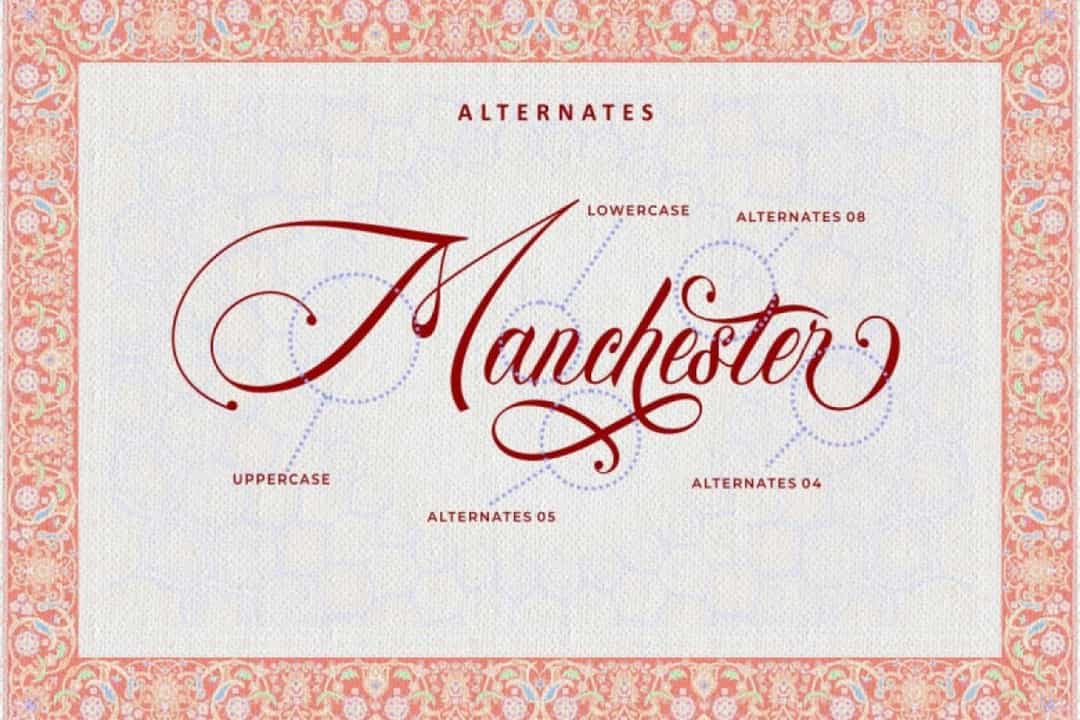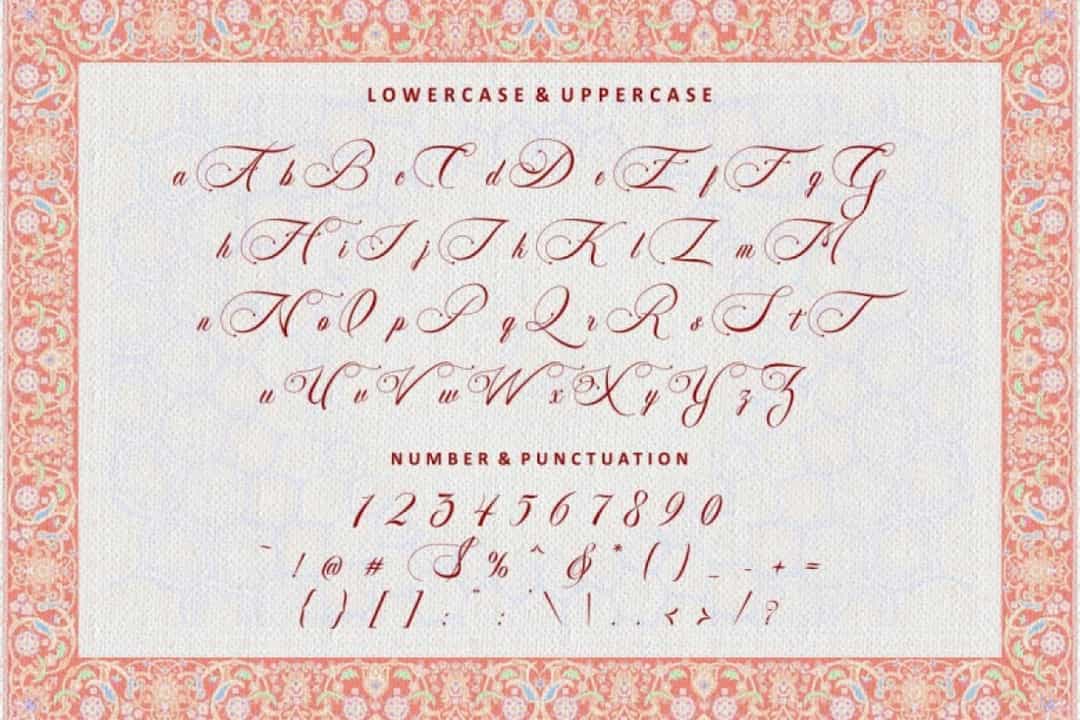
The Glamorous Carpet font is an extravagant script calligraphy font with a timeless style and elegant charm. Inspired by hand lettering in ink, wedding calligraphy, and minimalist branding styles.